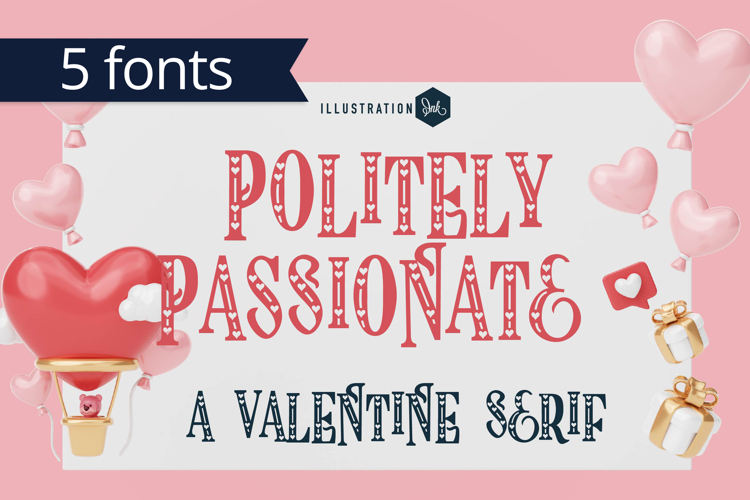
ZP Politely Passionate Font Family
This hand-crafted font is a whimsical, hand-crafted serif with flourishes and hearts throughout. There are 5 variations included.